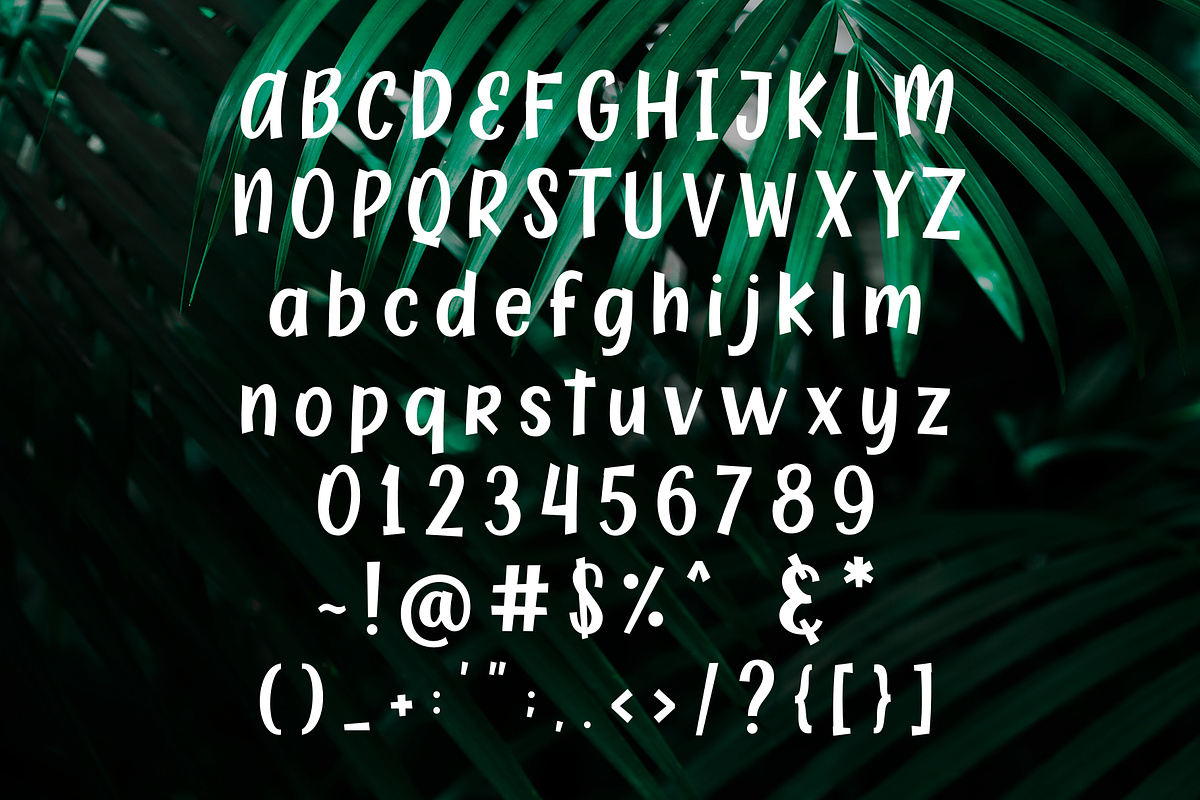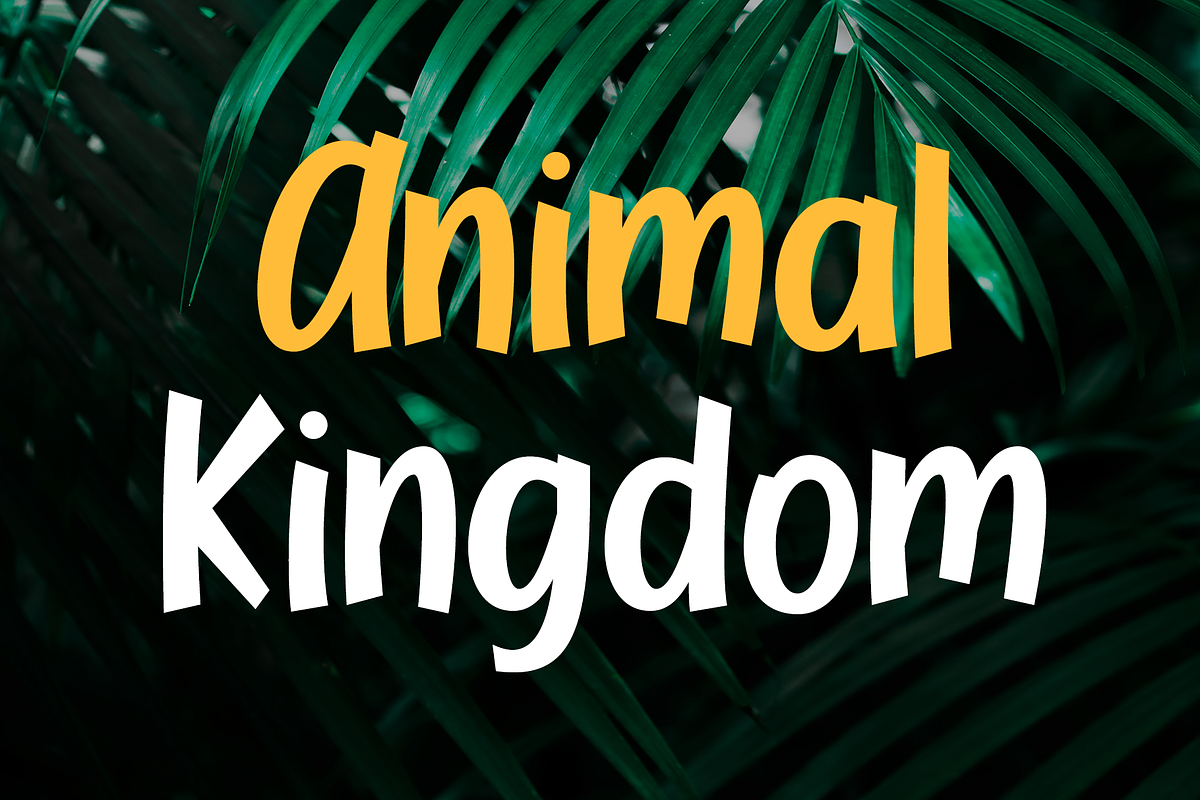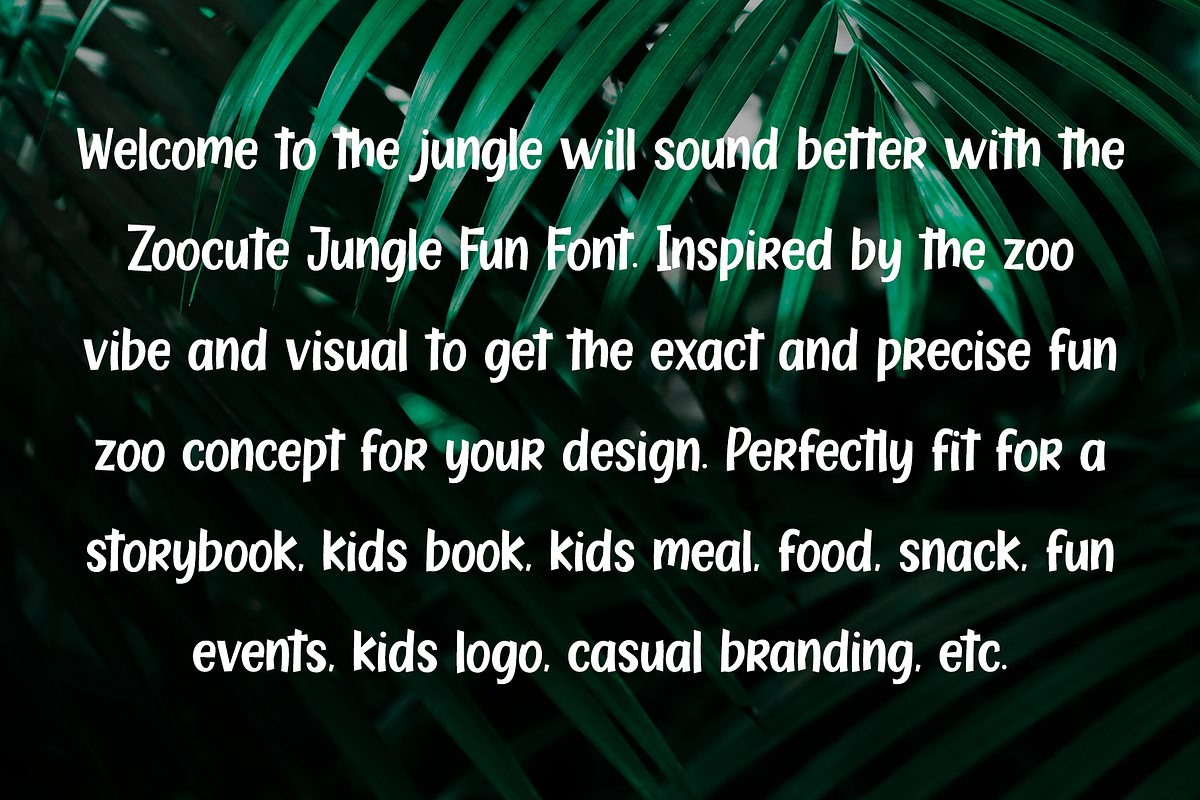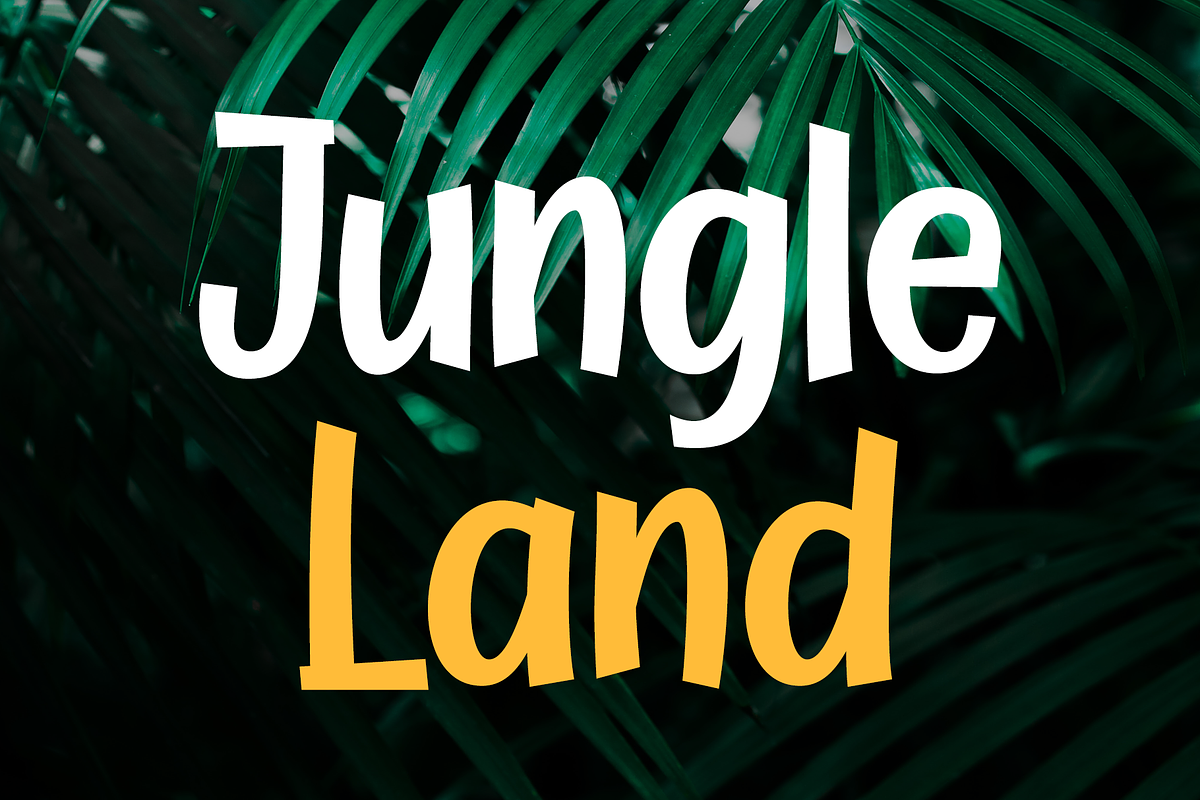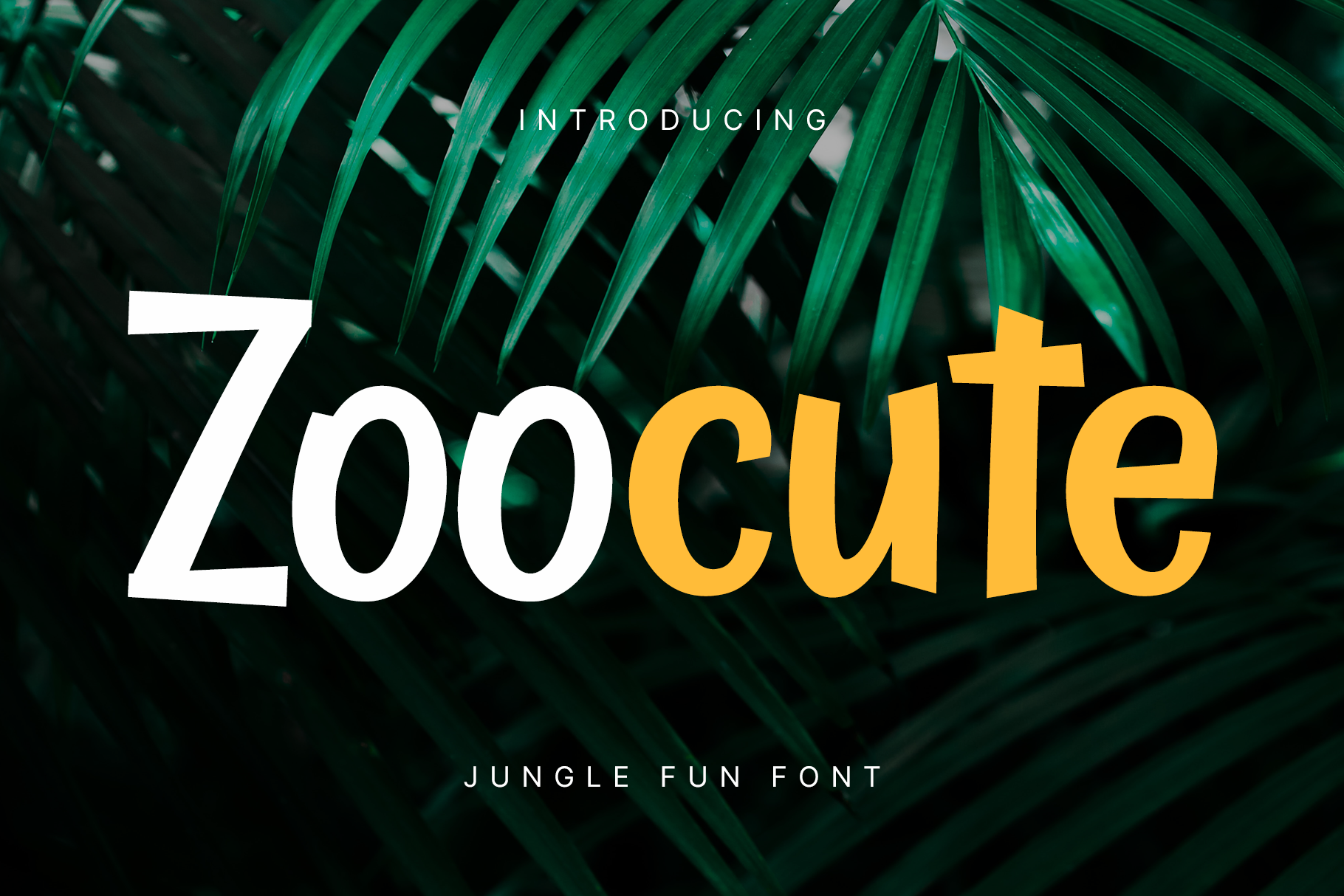
Zoocute – Jungle Fun Fonts
Welcome to the jungle will sound better with the Zoocute Jungle Fun Font. Inspired by the zoo vibe and visual to get the exact and precise fun zoo concept for your design. Perfectly fit for a storybook, kids meal, food, snack, fun events, kids logo, casual branding, etc.